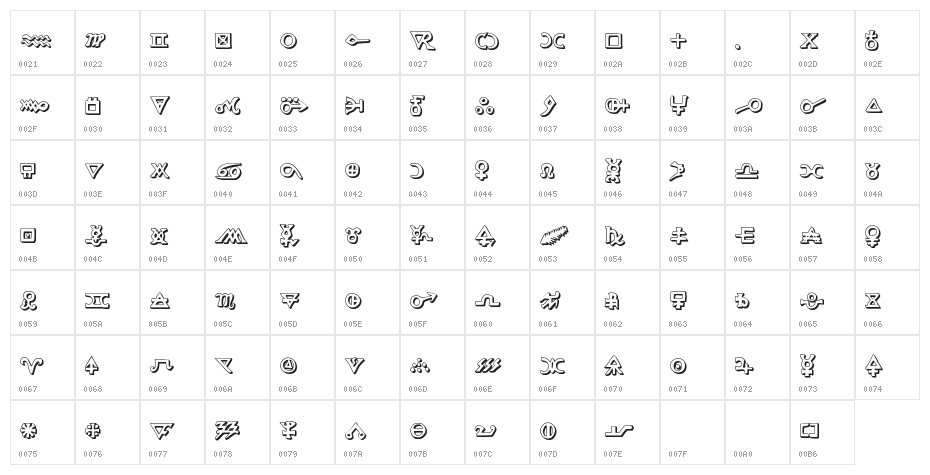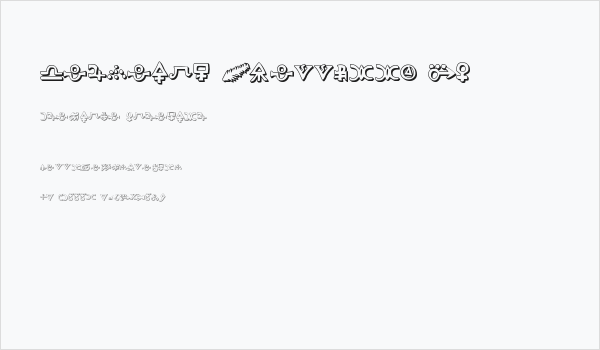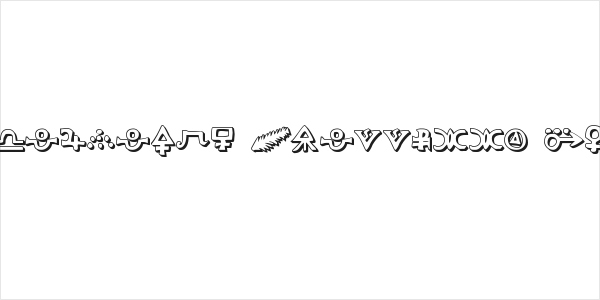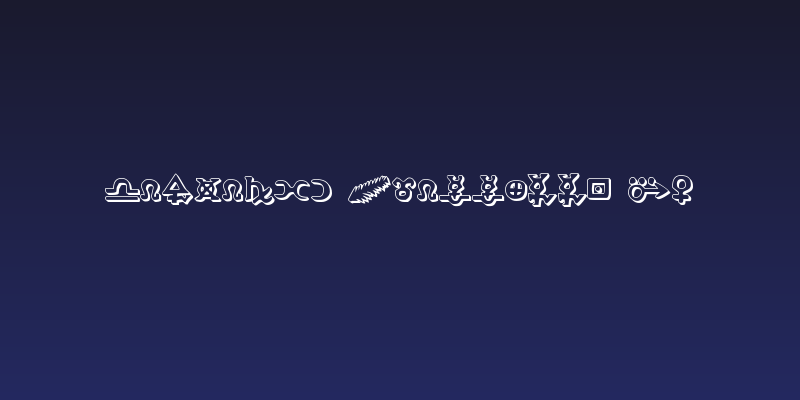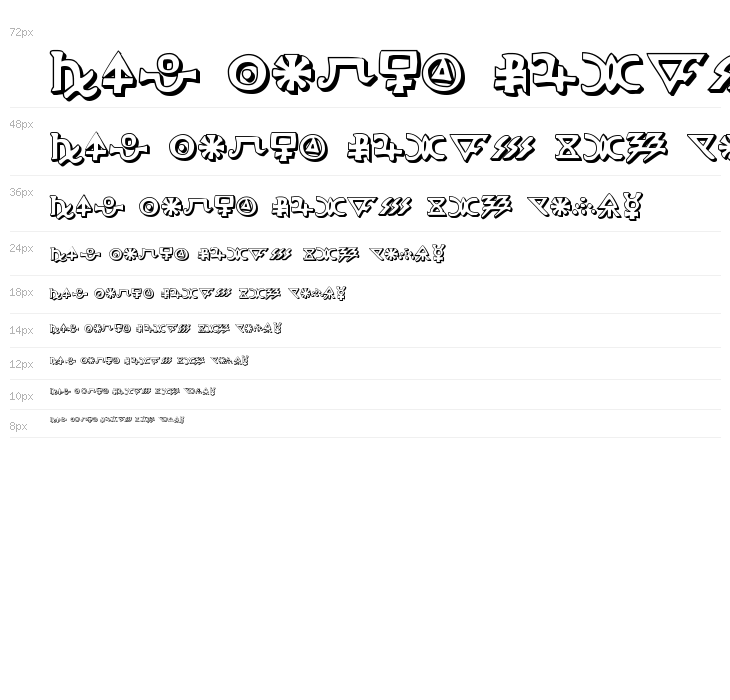
Hermetic Spellbook 3D Font
Hermetic Spellbook 3D Description
This font features a collection of unique, mystical symbols that evoke a sense of ancient magic and mystery. Each character is intricately designed with bold outlines and a three-dimensional effect, giving them a striking appearance. The symbols are a mix of geometric shapes, abstract forms, and arcane motifs, creating an enigmatic and otherworldly aesthetic. The boldness of the characters ensures they stand out, while the intricate details invite closer inspection. This font is perfect for projects that require a touch of the mystical or the arcane, such as fantasy-themed designs, game interfaces, or magical book covers.
| Overall Style | Mystical, Enigmatic, Magical |
| Use Case | Logos, Decorative elements, Fantasy themes |
| Proposed Projects | Fantasy book covers, game interfaces, magical themed designs. |